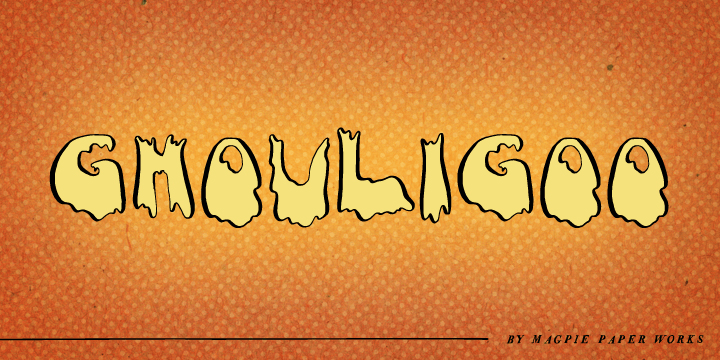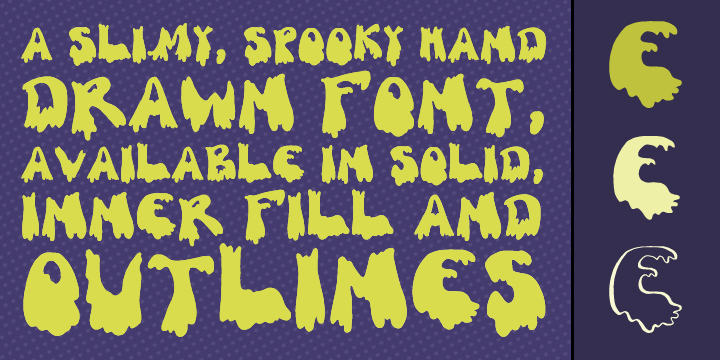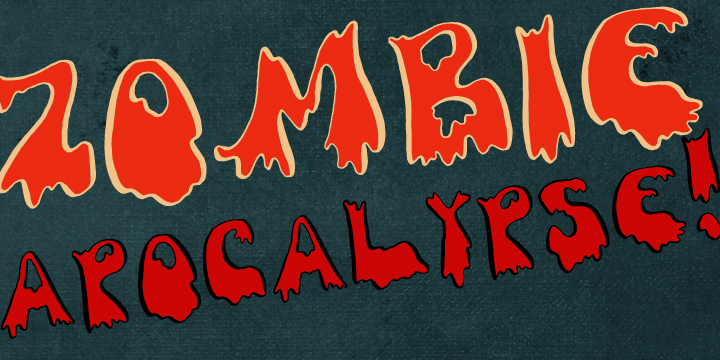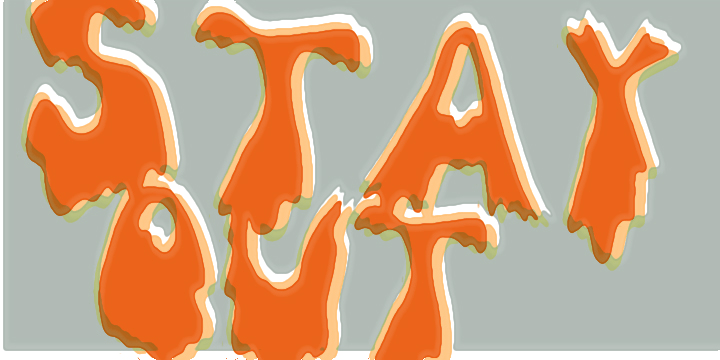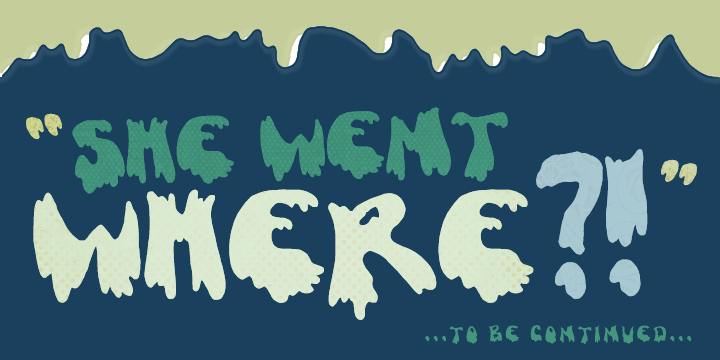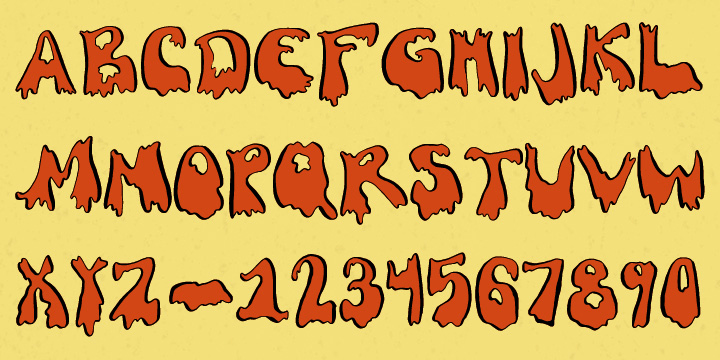
Ghouligoo
Font Family by Magpie Paper Works
Ghouligoo from Magpie Paper Works is a spooky hand-drawn font perfect for comic books, Halloween decor and the zombie apocalypse. The font family includes solid, outline, and inner fill letterforms for maximum versatility.